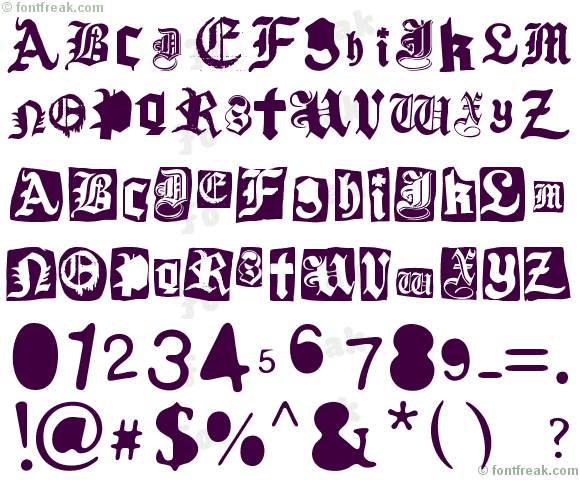
Gothic Punk
The Gothic Punk font, designed by woodcutter Manero, embodies a striking blend of gothic and punk aesthetics that sets it apart in the world of typography. This unique display typeface features an assortment of bold, angular forms and intricate details that evoke a sense of rebellion and artistic flair. The stroke weight varies dramatically throughout the characters, creating a compelling visual contrast that draws the eye. The letters exhibit a playful spacing, allowing for a dynamic flow that enhances readability while maintaining an edgy appearance. Decorative elements, such as jagged edges and ornate flourishes, add to its distinctive character, making it ideal for creative applications.
This versatile font is well-suited for a variety of use cases. It shines in concert posters, where its dramatic style can capture the essence of live performances. Additionally, it can be effectively used in fashion branding, giving a rebellious vibe to clothing labels or promotional materials. Restaurant menus, particularly for establishments with a punk or alternative theme, can benefit from the Gothic Punk font's boldness, while it can also be utilized in art zines or graphic novels to convey a uniquely artistic narrative.
Ultimately, what sets the Gothic Punk font apart is its perfect fusion of gothic elegance and punk defiance. This font invites creativity and experimentation, making it an essential addition to any designer's toolkit. Whether you're crafting visuals for a music event or developing branding materials, this typeface promises to make a bold statement.